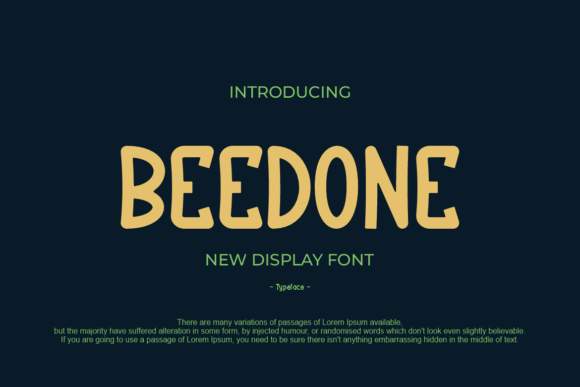
Immerse yourself in the captivating realm of Beedone, a display font that dances with charm and playfulness. Each glyph has been meticulously crafted to infuse your designs with a touch of whimsy. Whether you're envisioning captivating letter logos, alluring posters, or eye-catching headlines, Beedone empowers you to make an unforgettable mark. Its elegant curves and playful strokes will ignite your creativity and leave a lasting impression on your audience. Don't settle for ordinary fonts – embrace the enchanting allure of Beedone and watch your designs blossom with delight.